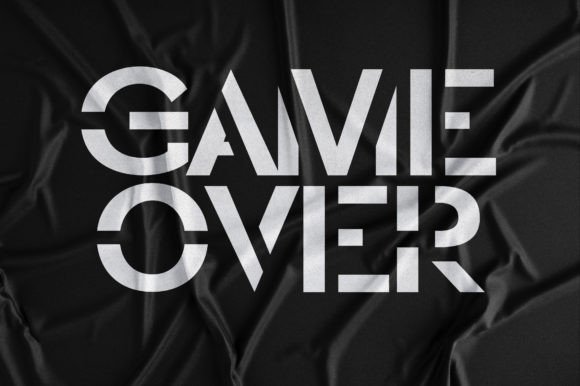
Cavqur Font
Cavqur is a geometric, stencil, and minimalist sans serif typeface. its unique shape construction renders it a valid choice when you are designing posters, videogames, apps, huge banners, horror movies, sports, music albums, horror themes, space or futuristic themes, war themes, action themes, mystery themes, etc. Add confidently to your font library since it will enrich any creation.